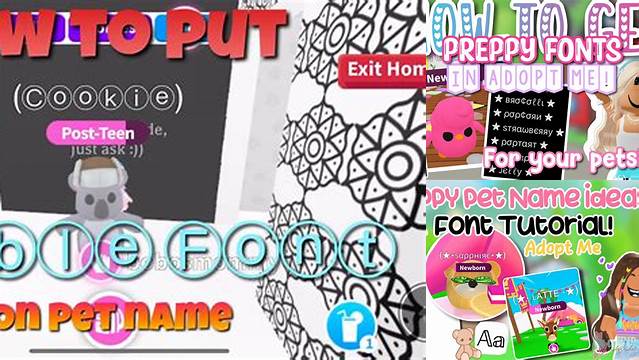
Cool Fonts For Roblox Adopt Me: Copy & Paste Magic!
Hey everyone! 👋 If you're a Roblox Adopt Me enthusiast like me, you know that personalizing your in-game name, shop signs, and chat messages is a total blast. And what's the secret sauce? Fonts! Using cool fonts can make your presence in Adopt Me stand out, adding a unique flair that grabs attention. But, figuring out how to get those fancy fonts working in Roblox can seem a bit tricky, right? Don't worry, guys, I've got you covered! This article is your ultimate guide to copy and paste fonts for Roblox Adopt Me, complete with easy-to-follow steps and a ton of font ideas to spice up your game. So, buckle up, and let's dive into the world of stylish text and make your Adopt Me experience even more awesome!
1. Why Fonts Matter in Adopt Me
Alright, let's talk about why fonts are so darn important in Adopt Me. Think about it: you're trying to sell that ultra-rare unicorn, or maybe you're just trying to let everyone know your shop is the place to be. The font you use is the first thing people see! It's like the outfit your shop or avatar wears. A unique, eye-catching font can make all the difference in attracting buyers, making friends, and just generally making your in-game presence memorable. It’s all about creating a visual identity. Imagine scrolling through dozens of names and shops – which one is more likely to catch your eye? The one with the standard Roblox font or the one with a cool, customized font? The answer is obvious! Custom fonts add personality, making you stand out in the crowded world of Adopt Me. They help convey a specific mood or theme. A bubbly font might be perfect for a toy shop, while a more elegant font suits a pet grooming salon. They also help you communicate better. A well-chosen font can make your message clearer and more engaging. So, let's start with some basic font examples and then move on to copying and pasting. We'll cover everything you need to know to be a font pro! It's a fun way to boost your profile, and who doesn't love a bit of customization?
2. Finding Your Perfect Fonts
Okay, so you're ready to jazz up your Adopt Me experience with some fancy fonts, but where do you even start looking? Don't worry, I've got some great sites to help you find the perfect font style. A good place to begin is with online font generators. Websites like CoolFont.org, Lingojam, and LingoJam offer a vast array of fonts that you can copy and paste. Many of these sites are super easy to use – just type your text into the box, and they'll generate a bunch of different font styles for you to choose from. Another excellent source is the Font Meme website, where you can also generate fonts. Remember that when browsing these websites, you'll want to be mindful of any potential compatibility issues with Roblox. Not all fonts will work perfectly. Test a few before deciding. Other things to keep in mind are that sometimes, some fonts are just perfect for specific uses. For instance, a playful, cartoonish font might be great for your Adopt Me name or shop sign, while a more elegant, professional-looking font could be suitable for your roleplaying persona. Also, ensure that the fonts are easy to read. While it is important to be unique, readability is key! So, spend some time exploring different font styles and consider how they align with your brand and goals within Adopt Me. This is really about what you want to express, so make sure your font choice reflects that. Do you want to show you are approachable or more serious? Fun and playful? This will help you find the perfect fonts for you.
2.1. Best Font Generators to Use
Okay, let's get down to the nitty-gritty! You're going to want to get familiar with some of the best font generators out there, and these will become your go-to resources for creating those fabulous text styles in Adopt Me. First up is CoolFont.org. This is a super simple and user-friendly website that is perfect for beginners. All you have to do is type in your text, and it will instantly generate a bunch of different font styles for you to check out. It offers a great selection of fonts, from the classic to the edgy, so there’s something for everyone. The next great tool is Lingojam. Lingojam is a little more advanced, allowing you to experiment with different styles and features like text art. It’s a great resource if you want to create a unique font. Next, we have FontMeme. Font Meme lets you type text and provides various font styles. It's not just about generating fonts but also offers a library of pre-made images of various fonts. These are fantastic if you want to quickly find a style or get inspiration. Another great site is Stylish Text. Stylish Text offers many customization options and an easy-to-use interface. You can choose from hundreds of fonts and create some truly amazing text effects. Also, don't forget to check out websites like Textify. Textify allows you to generate fancy text for social media and games. These websites are designed to simplify the whole process of copying and pasting fonts. Don't forget that practice makes perfect. So, experiment with a few different tools and find the ones that suit your needs the best. Also, be patient; it might take some time to find the perfect font. You'll get the hang of it! With these tools in your arsenal, you'll be creating eye-catching text in no time!
3. The Copy and Paste Method - Step by Step
Alright, now for the main event: How to copy and paste fonts for Roblox Adopt Me! It's easier than you think. Just follow these steps, and you'll be stylizing your text in no time! First, head over to one of the font generator websites we mentioned earlier. CoolFont.org, Lingojam, and FontMeme are great starting points. Next, type in the text you want to use. Whether it's your username, a shop sign, or a chat message, type it into the provided text box. The font generator will then work its magic and display your text in various font styles. Browse through the options until you find one you like. Once you’ve found the perfect font, select the stylized text, right-click, and choose